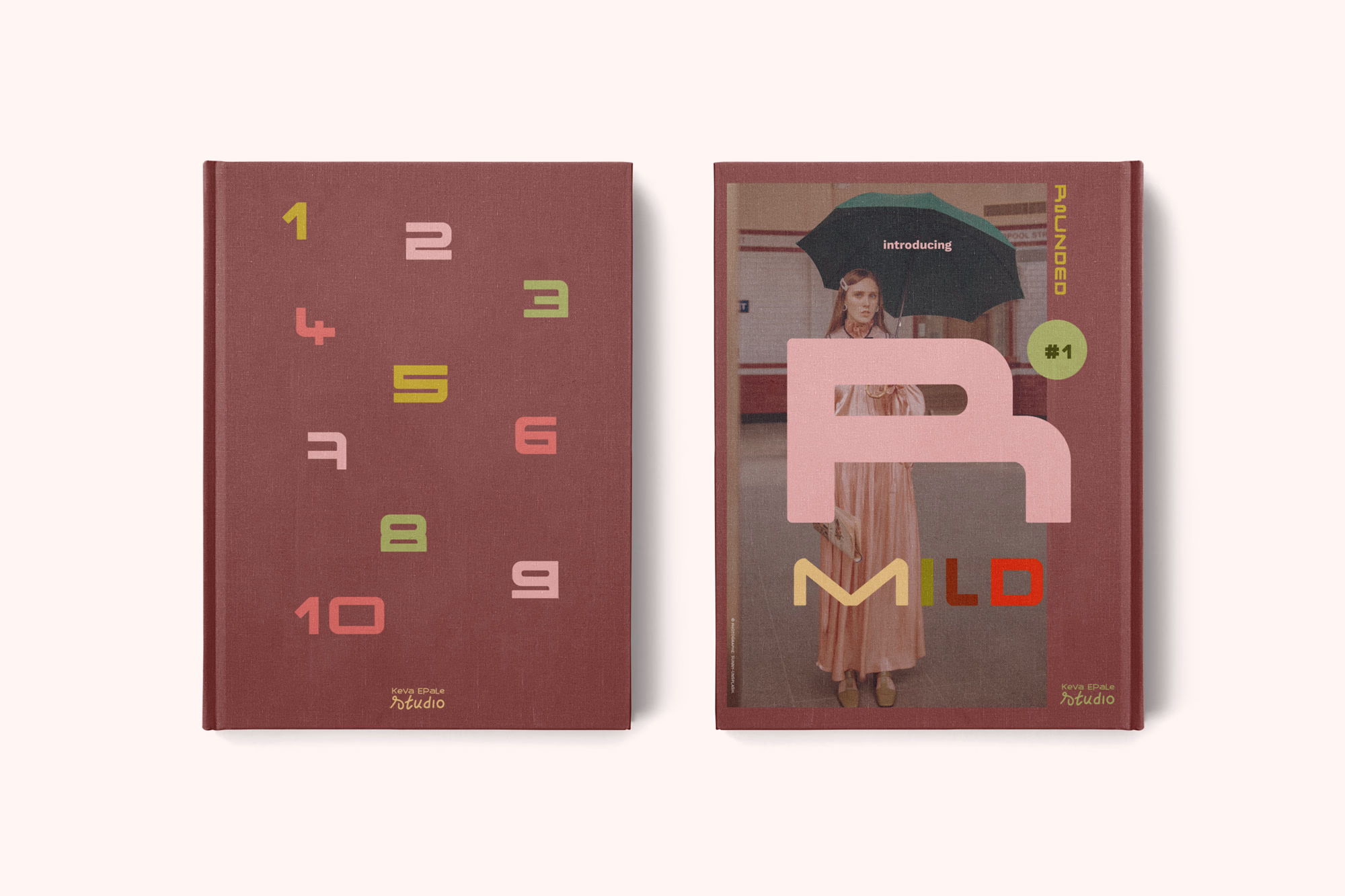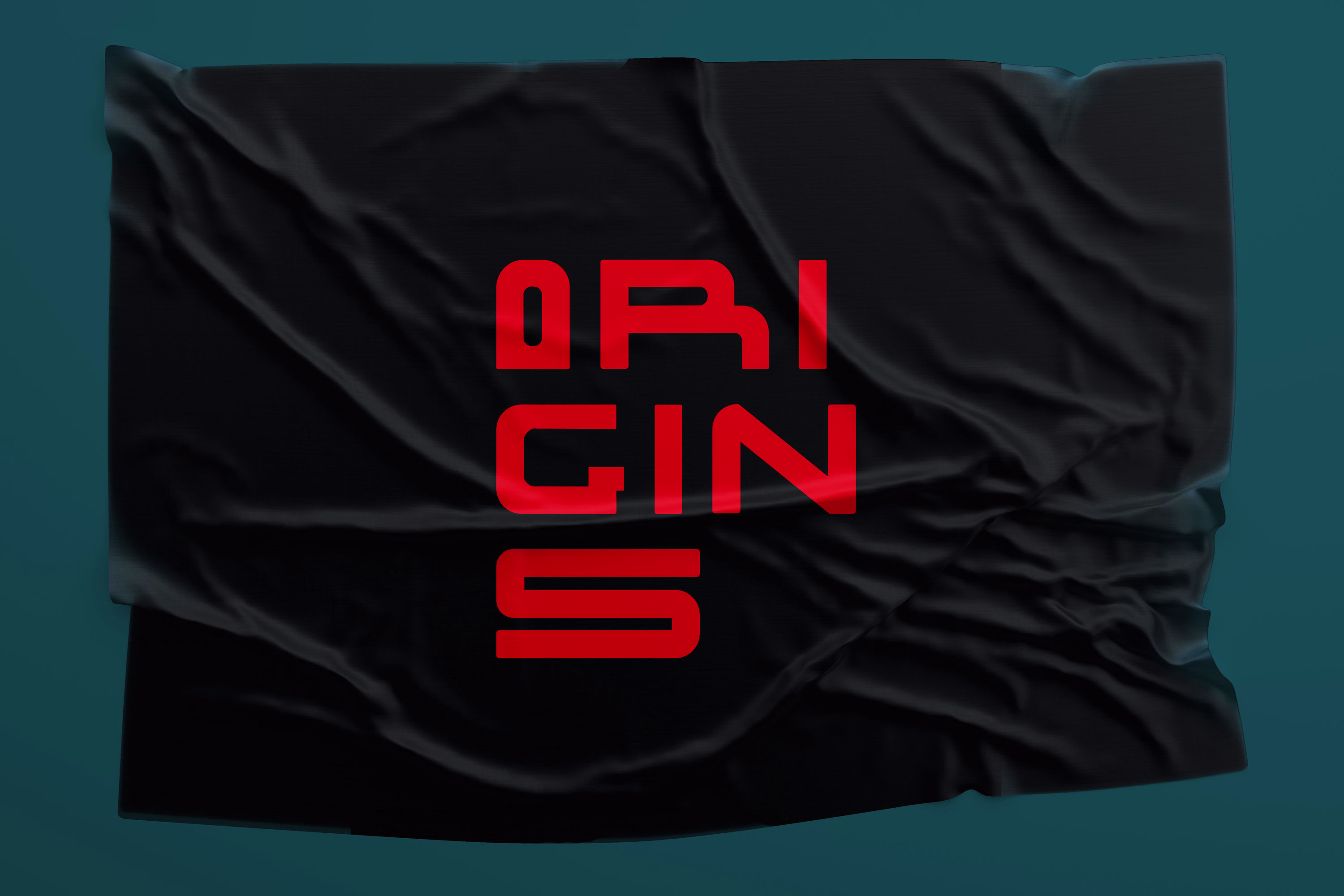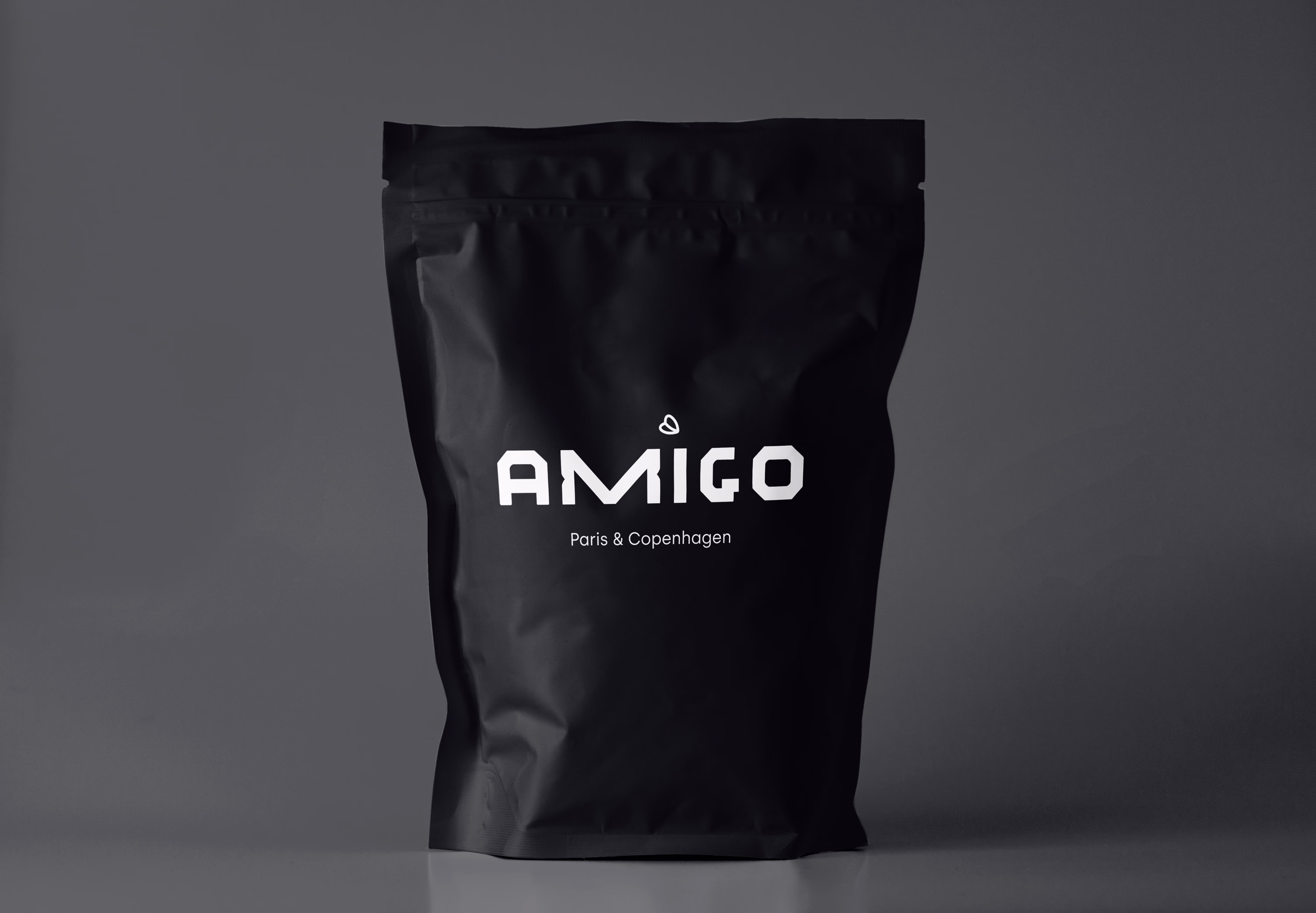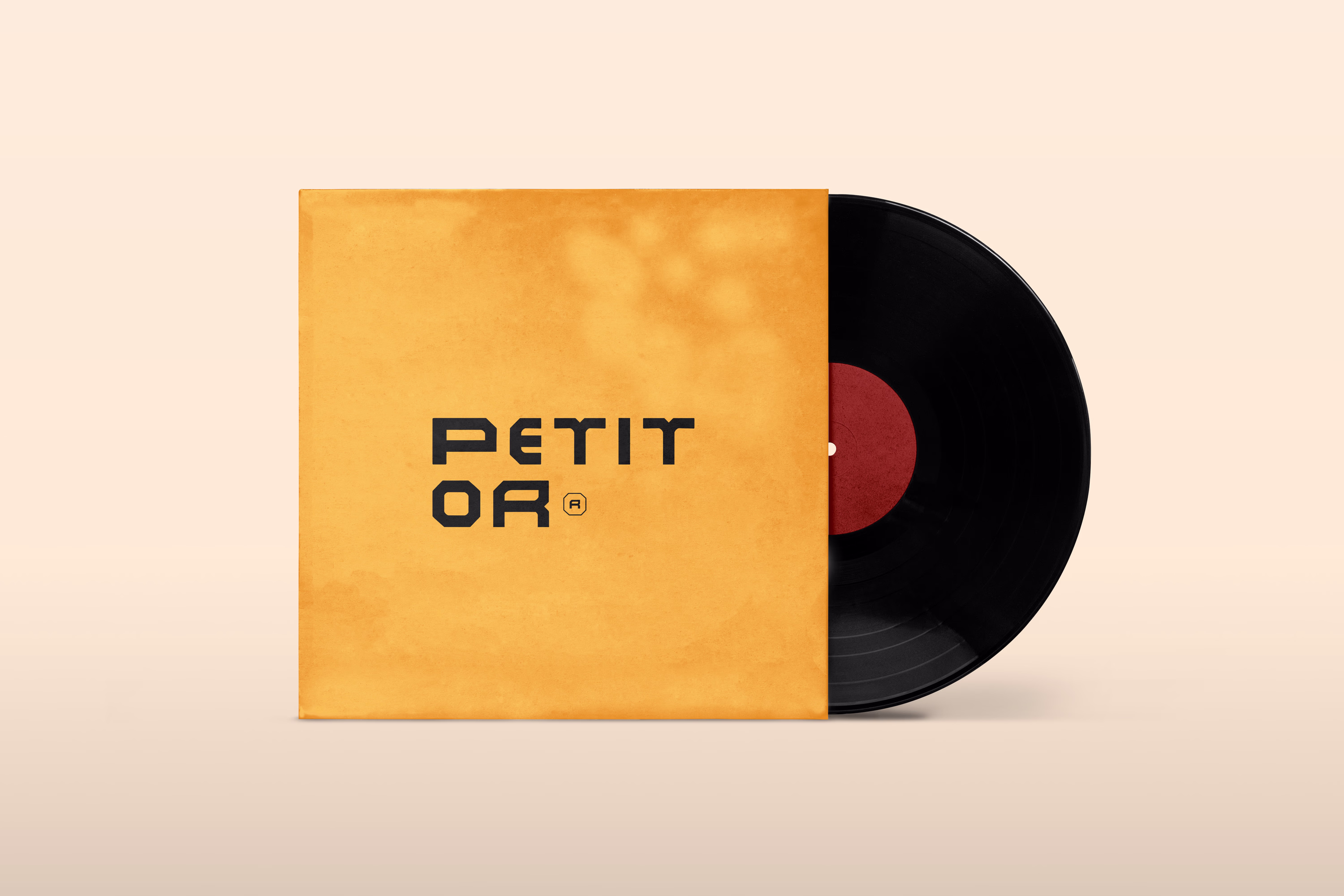
''A typeface that contrasts with its name: mild, but playful. A bold, imperfect, and empowering typeface.'' Mild is a typeface with 2 versions, all in upper case. A ''rounded'' version that has softness and space. An ''angular'' version with its own edgy rhythm.
Each version contains alternatives. It allows you to create, conceive, and experiment with more ease and playfulness.
Great for catching the eye and intrigue.
It can be used across a variety of mediums: websites, branding, books, social media, movies, record covers...
_ Why I created Mild
Mild was born while working on a branding project. I was creating a logo for a copywriter, and out of all my proposals, its hand-sketched lettering caught my eye. The lettering wasn’t selected for that particular brief, but it had potential. I sketched it out and reconsidered the concept, refining it into a set of letters. Eventually, I arrived at the complete typeface with the boldness and edge I had sensed in the original hand-sketched version.